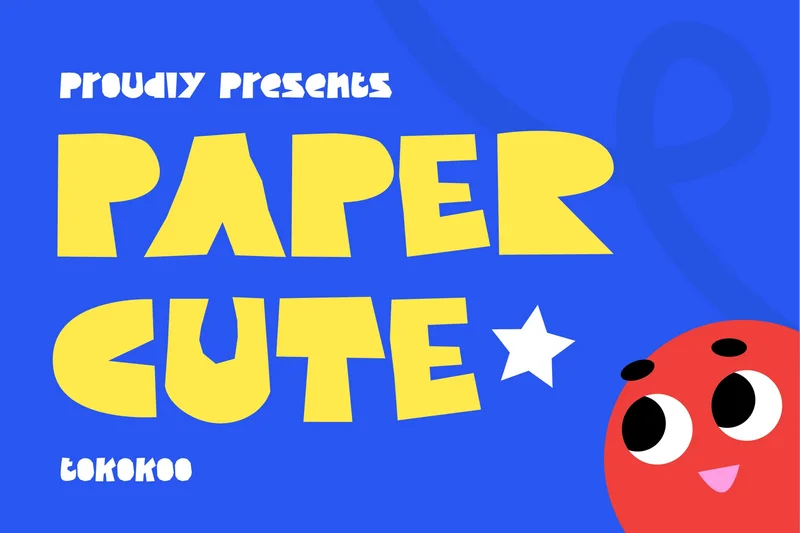
Papercute – Playful Kids Display Font
Papercute is a playful kids font inspired by the charm of handmade paper-cut letters. Its chunky shapes, soft edges, and bouncy baseline give every word a lively, friendly rhythm. Designed with a geometric yet organic flow, Papercute feels cheerful and easygoing — perfect for playful storytelling, children’s books, and bright branding visuals.
Whether you’re crafting school posters, toy packaging, or cheerful logos, Papercute brings a burst of happiness to your typography. It’s expressive, bold, and delightfully imperfect, just like a child’s imagination in motion.
Papercute captures attention in kids branding, social media graphics, and educational design with its bold letterforms and confident charm. It helps brands instantly express warmth, creativity, and fun. Use it in posters, product packaging, invitations, or YouTube thumbnails to create a look that feels both energetic and approachable.
Its handcrafted cutout feel also makes it perfect for DIY craft brands, kids clothing labels, or fun campaigns that need an authentic and joyful tone.
Playful Personality: Each letter radiates happiness with a handcrafted paper-cut aesthetic.
Versatile Usability: Works beautifully for logos, packaging, and kid-related products.
Readable & Bold: Chunky shapes ensure strong visibility on both digital and print designs.
Joyful Aesthetic: Perfect for children’s stories, games, classroom decor, and brand identities.
Creative Freedom: Mix colors, outlines, and textures for endless playful variations.